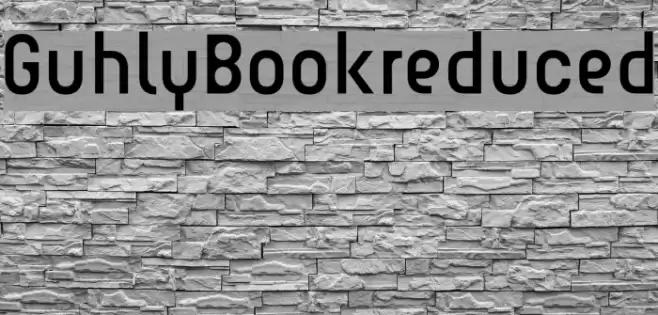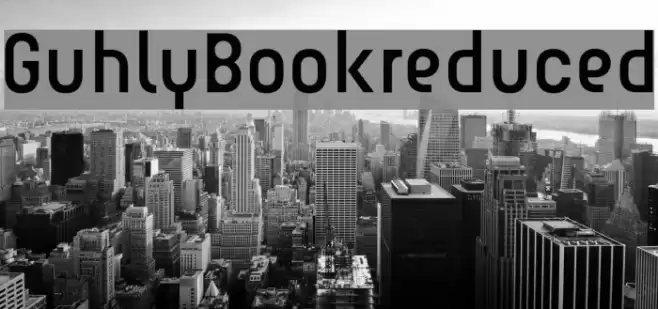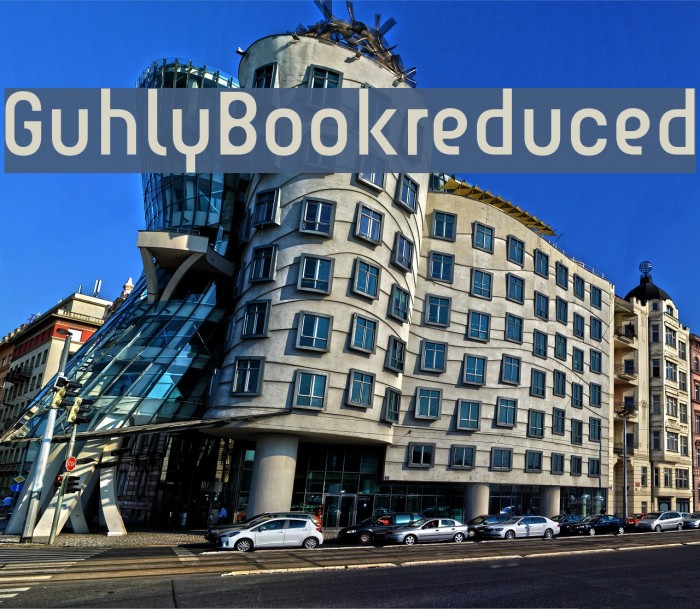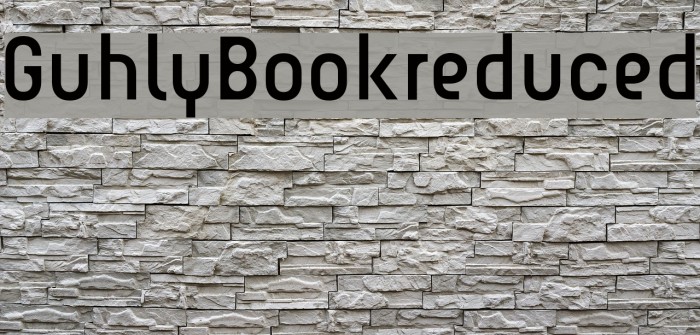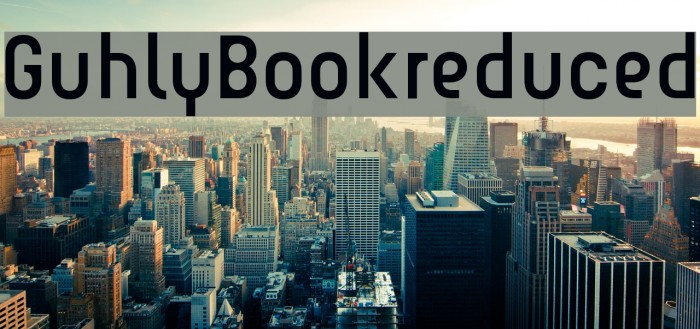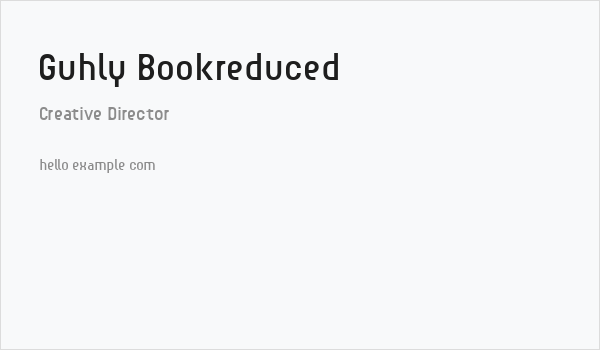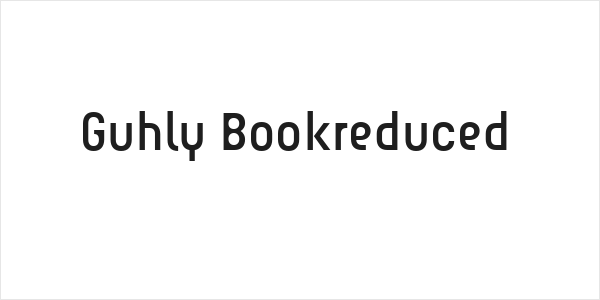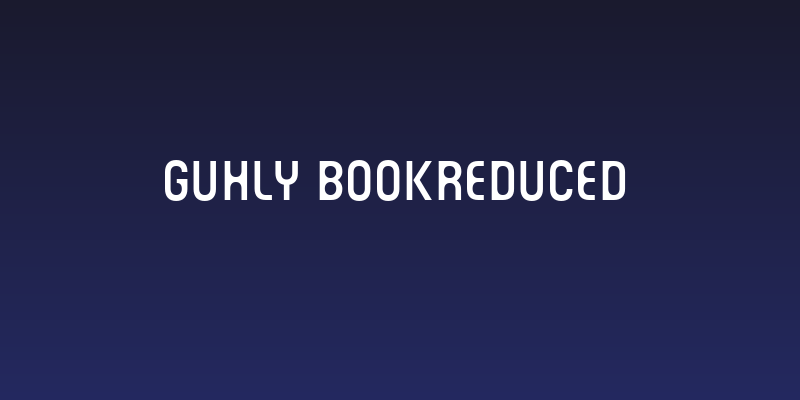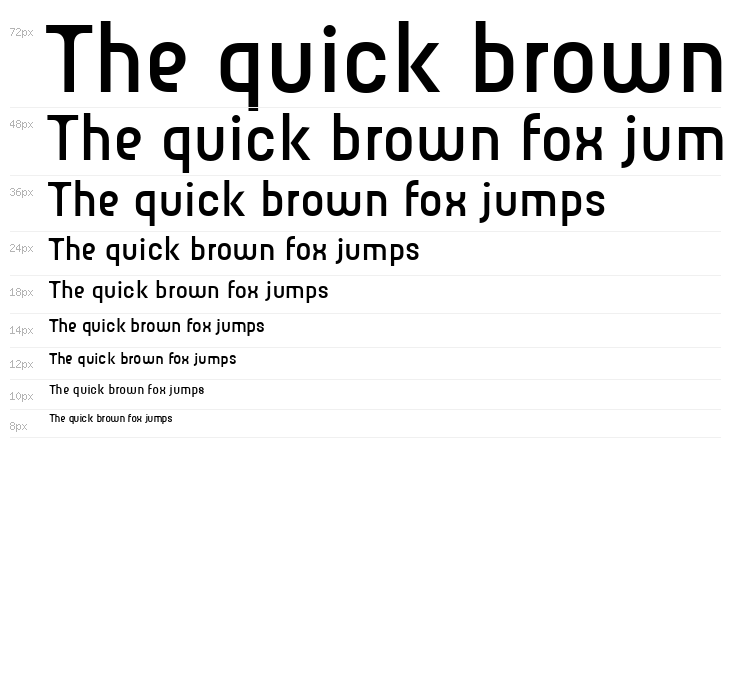
Guhly-Bookreduced Font
Guhly-Bookreduced Description
This font features a modern and clean design with rounded edges and a geometric structure. The uppercase letters are uniform in height, providing a balanced and harmonious appearance. The lowercase letters maintain a consistent style, with smooth curves and a slightly condensed form. The numerals are clear and easy to read, matching the overall aesthetic of the alphabet. Special characters are designed with the same attention to detail, ensuring they integrate seamlessly with the rest of the font. This font's simplicity and clarity make it versatile for various design applications.
A modern, geometric font with rounded edges and a clean design from Uncategorized fonts.
- Proposed Projects: Ideal for branding, web design, advertising, and editorial projects.